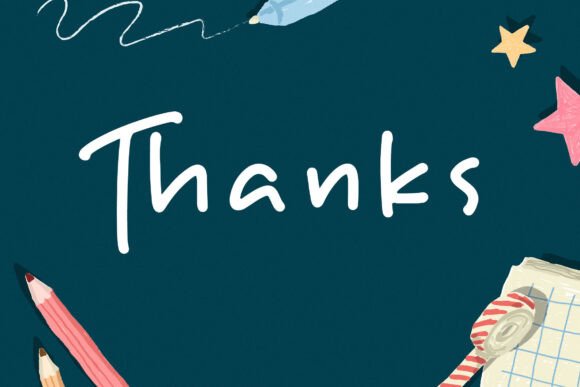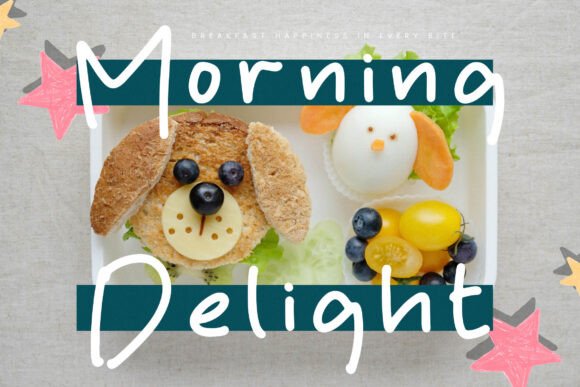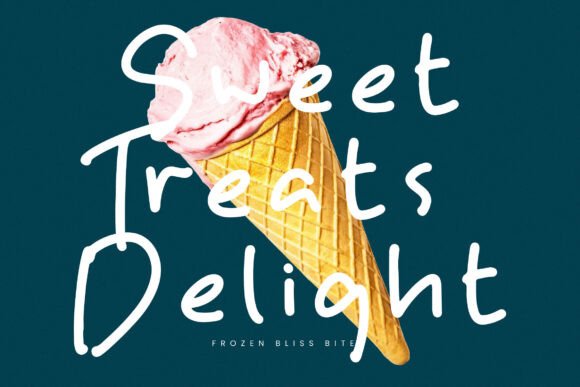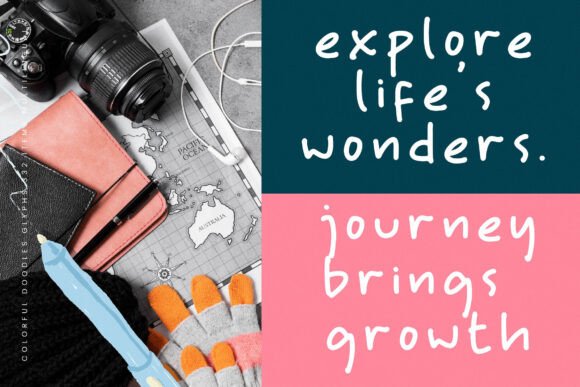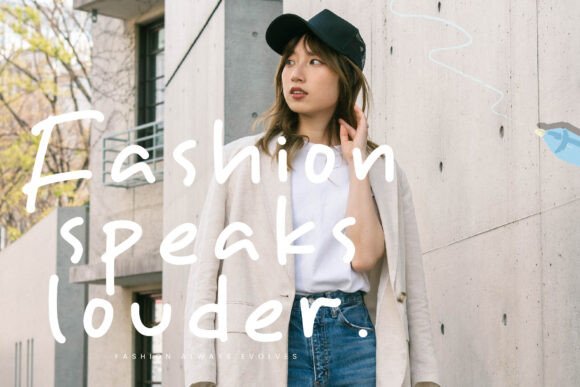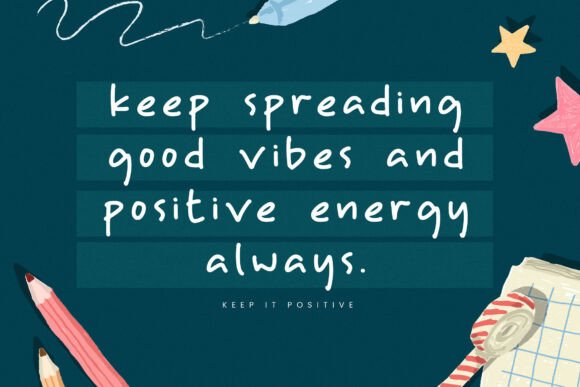
Introduction to Magical Treasure Font
Magical Treasure– A Modern Handbrush Script Font perfect for any project like: logos, branding projects, homewares designs, product packaging, mugs, quotes, posters, shopping bags, t-shirts, covers books, business cards, invitation cards, greeting cards, labels, photography, watermarks, special events and all your other luxury projects that require a premium taste.
Key Features of Magical Treasure Font
Why Choose Magical Treasure Font?
Magical Treasure Font offers exceptional quality and versatility, making it a valuable addition to your design toolkit. Whether you’re creating for personal projects or commercial use, Magical Treasure Font delivers professional results.